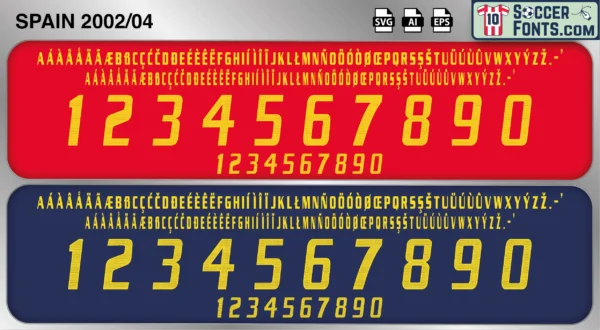
Spain 2002-04 Font
The Spain 2002-04 font is an editable soccer jersey lettering design in vector format inspired by the Spain kit style used during the 2002-04 football seasons. This football font artwork is prepared for football shirt recreations, custom jersey projects, football kit mockups and sports graphic design workflows.
The 2002-04 era followed Spain’s strong World Cup campaign and continued the development of a talented generation of players competing at the highest levels of European football. The squad featured footballers such as Raúl, Iker Casillas, Carles Puyol, Xabi Alonso, Joaquín and Fernando Morientes while preparing for UEFA EURO 2004 in Portugal. Spanish clubs continued achieving success in European competitions, contributing to the growth of a football culture increasingly recognized for technical quality and tactical intelligence. During this period, several younger players began establishing themselves as future leaders of the national team.
The Spain 2002-04 font became associated with a transitional period between established stars and the generation that would later dominate international football. Spain shirts from this era remain recognizable among football shirt collectors because of their connection with classic early-2000s Spanish football and the final years before a historic transformation of the national team. The Spain 2002-04 font reflects an important chapter in Spain’s football story, capturing a period of development, expectation and the emergence of talents who would later contribute to one of the greatest international eras in football history.